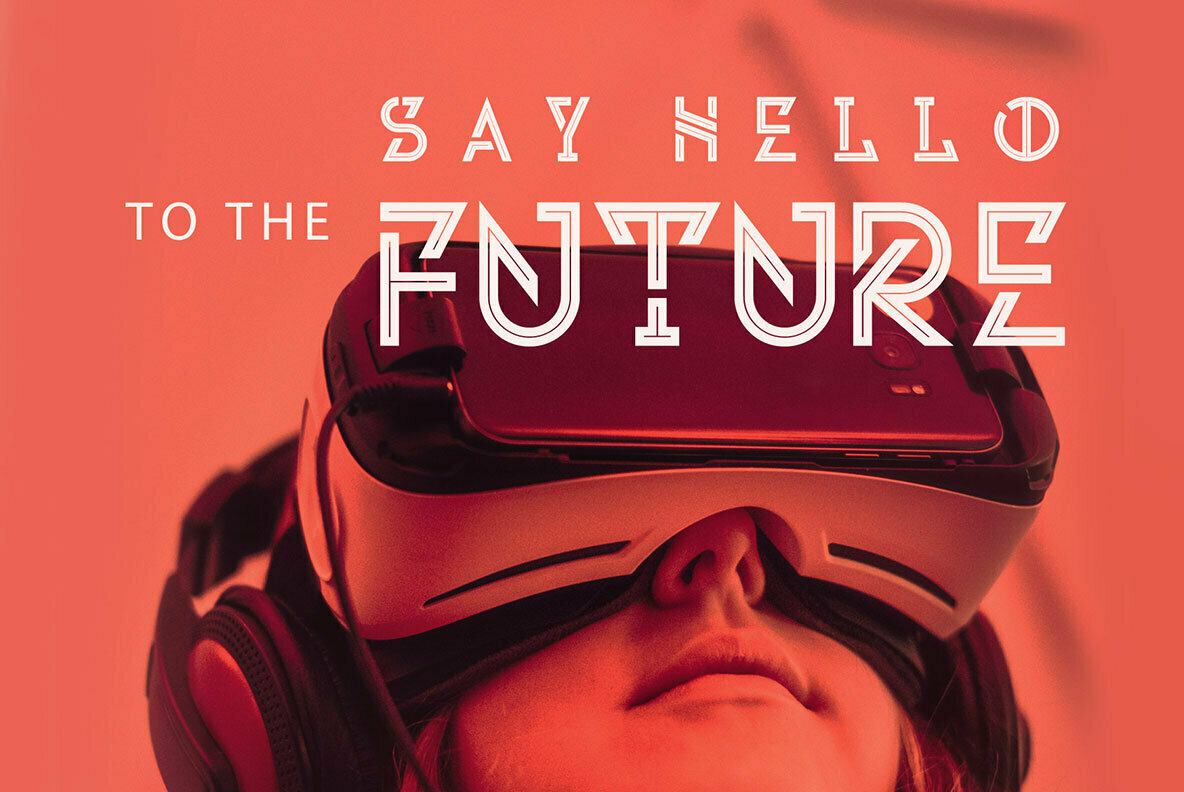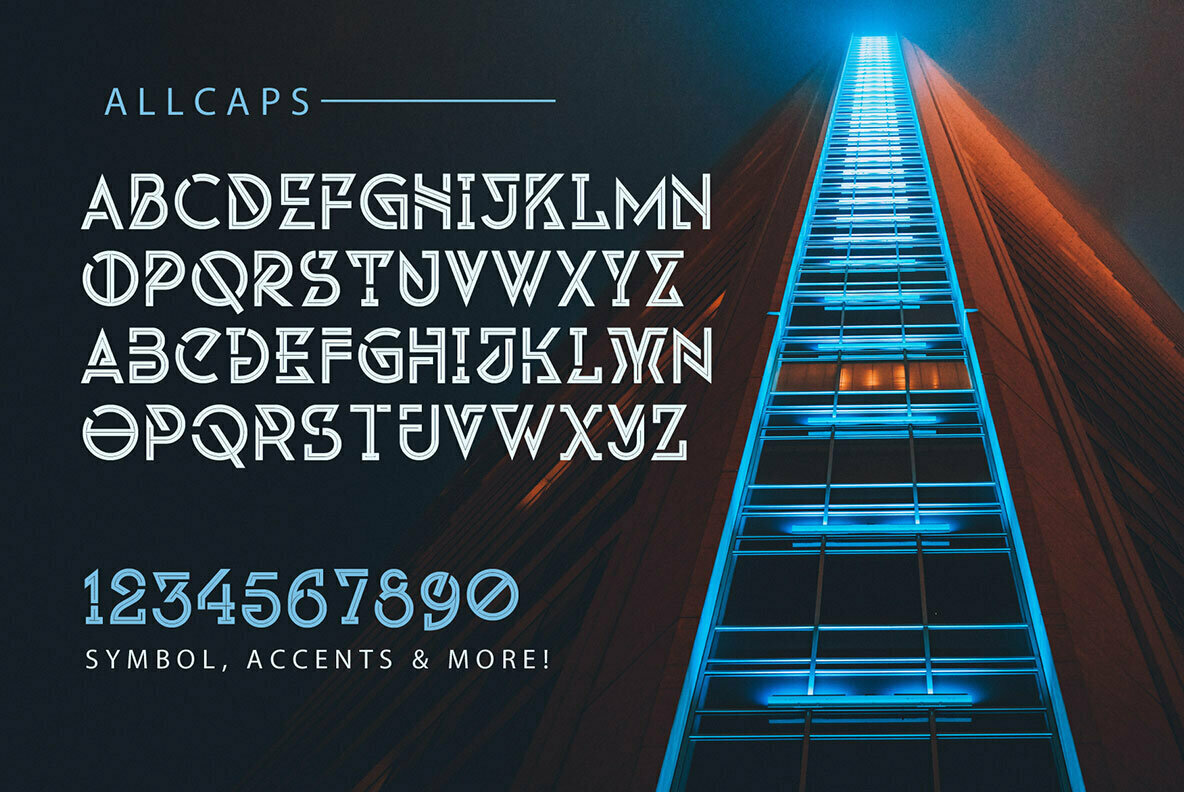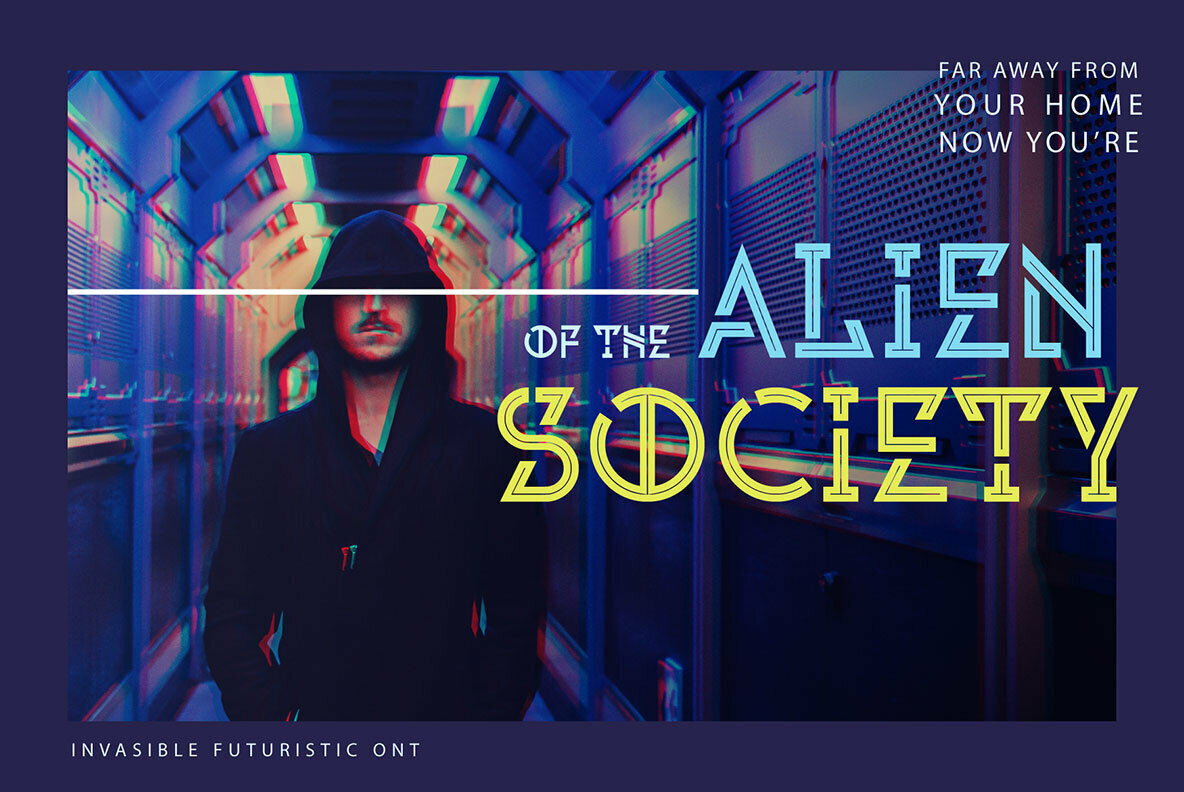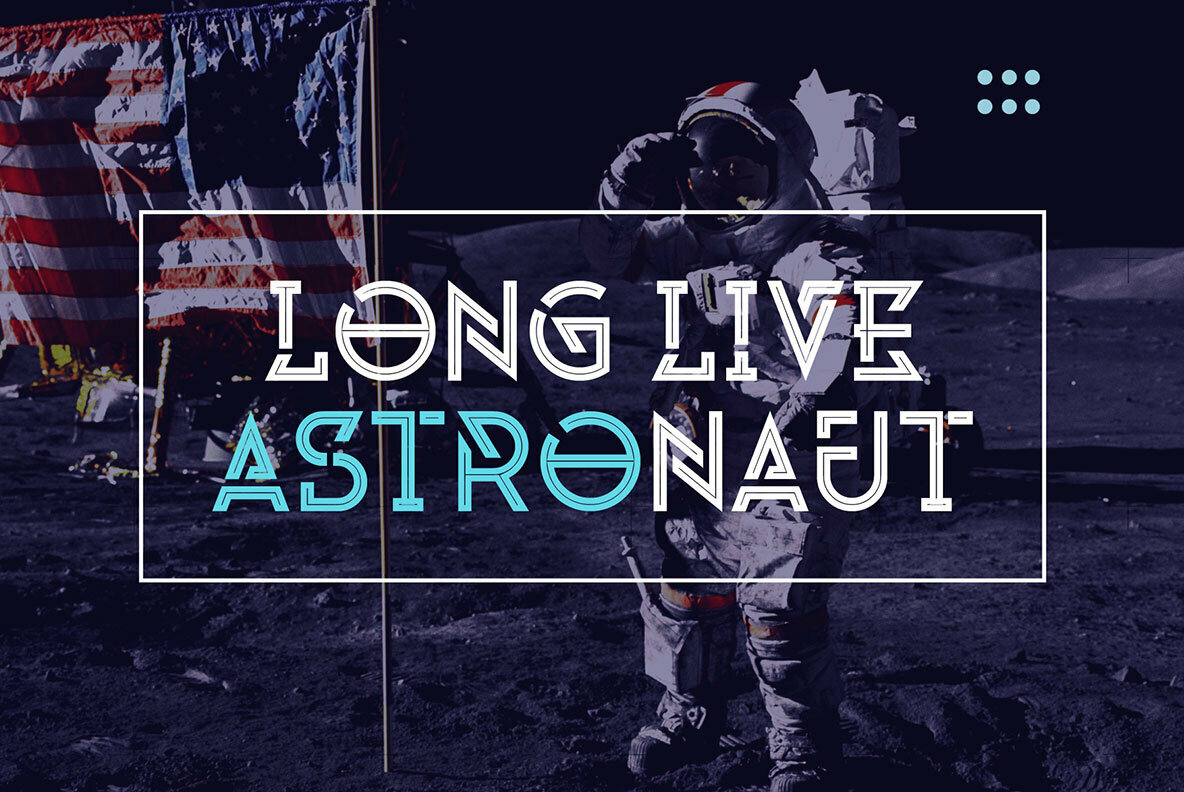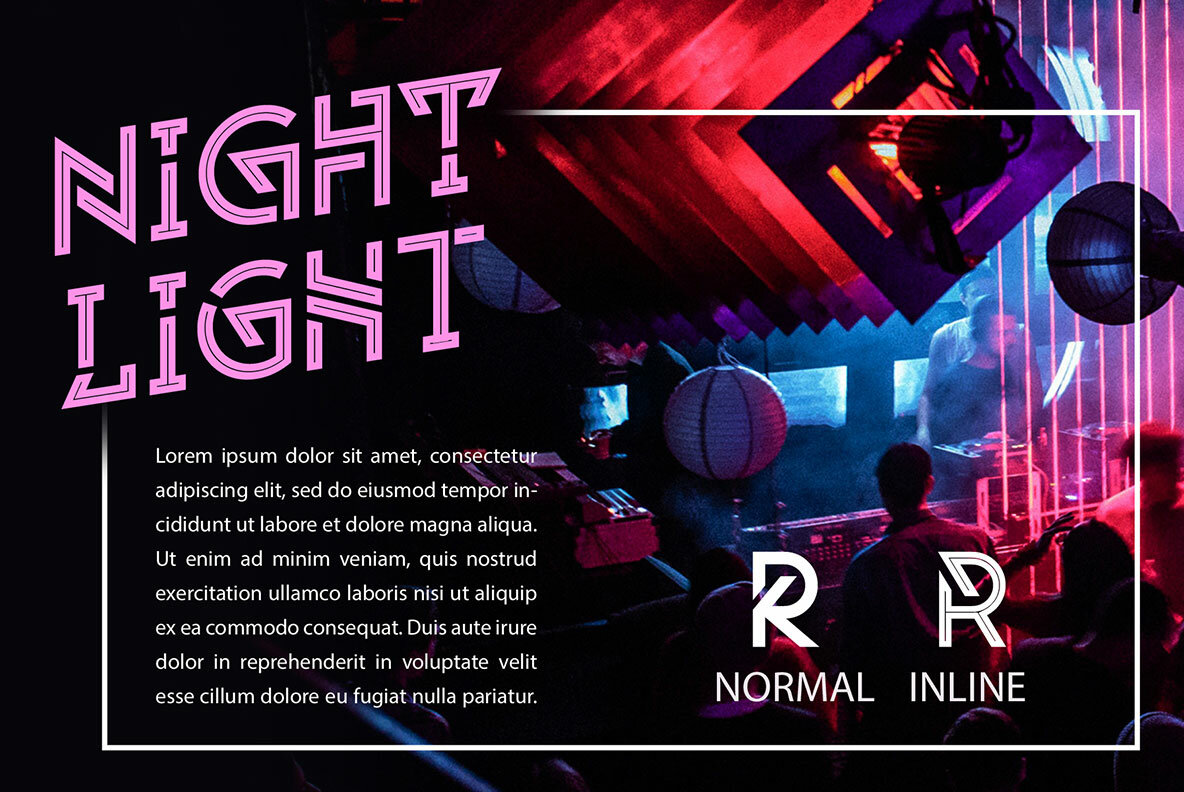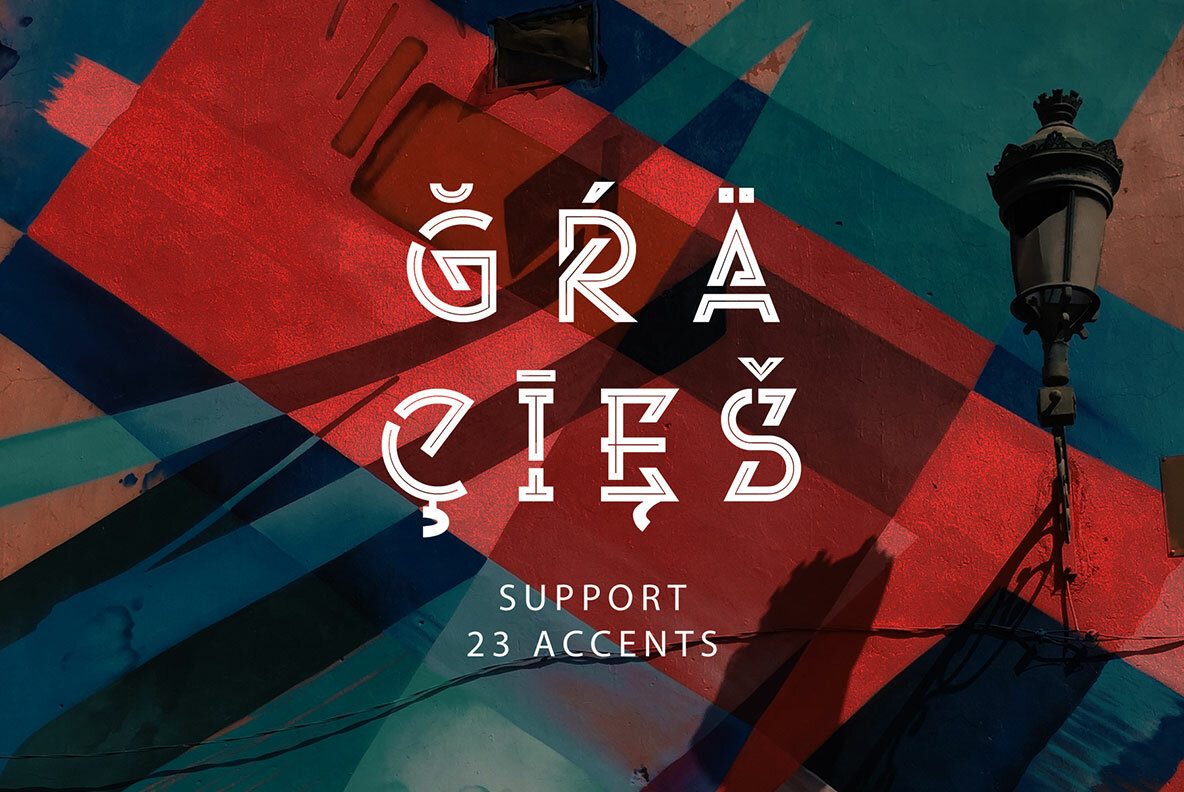
Invasible Font
Introducing our new exploration "Invasible", the futuristic font inspired from the spacey movie. This font is all-caps with different shapes of lower-caps that gives you an alternative in your design project. Invasible is a display font that suitable on your headline to your magazine, flyer, poster or neon installation. Also clearly shaped to applied in print design like t-shirt, mug, banner or motion graphic.
The style of this font is good on minimalist themes like pop art, sci-fi, pop-retro, pop-vintage, art deco, techno and of course calmly-futuristic. There are 300+ glyphs with 2 different styles : Inline and Normal style.